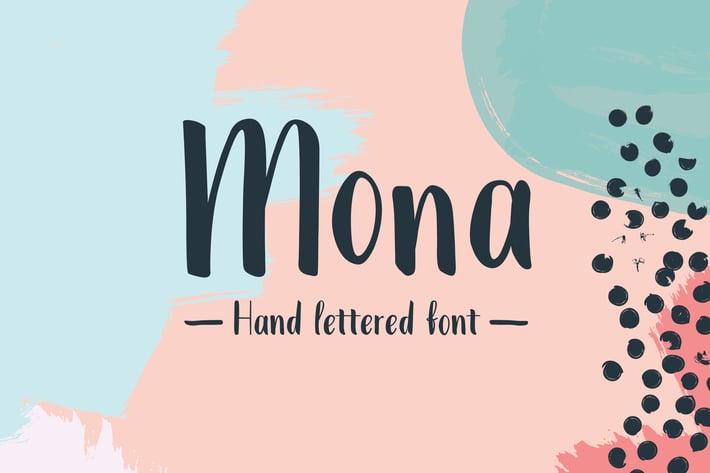
Mona Extended Font
Mona hand lettered extended font is a hand drawn brush font. It has contrasting thin and bold lines. Uppercase and lower case letters included. Latin Extended. Itβs great for creating identities, logos, posters and packaging design.
The Font comes in two styles - regular and bouncy